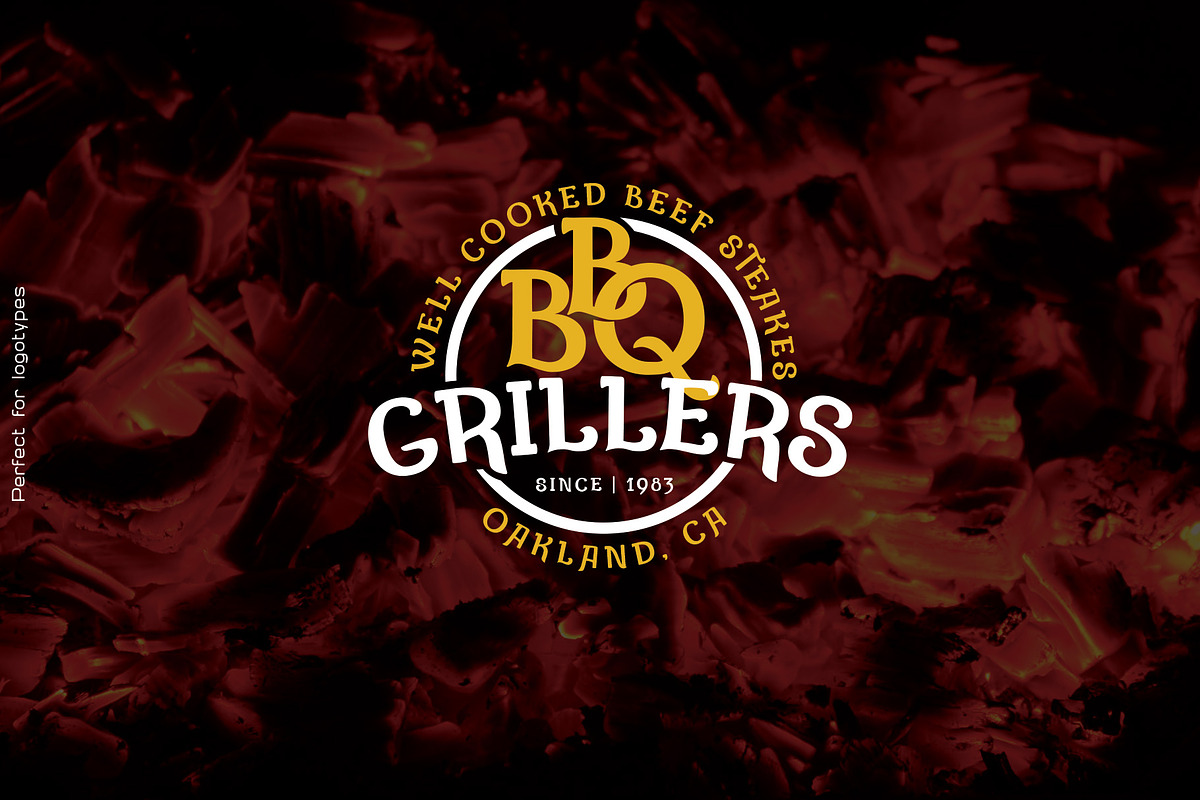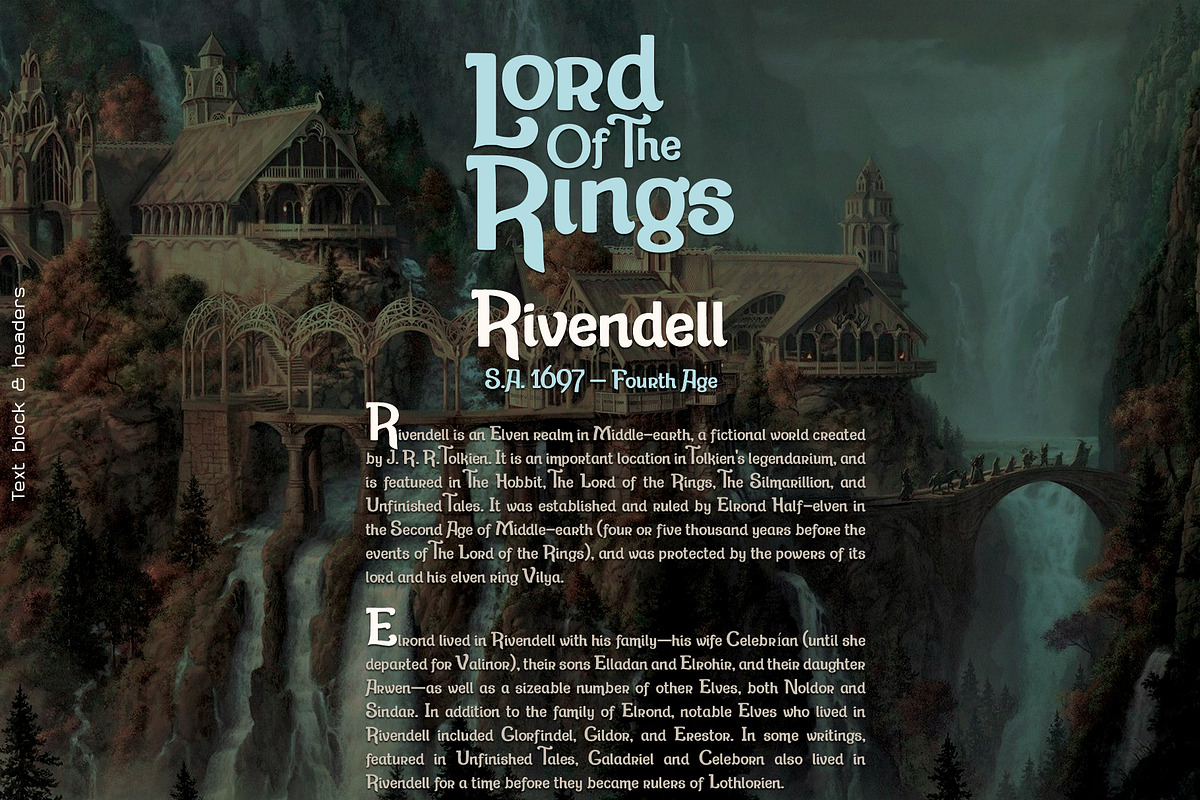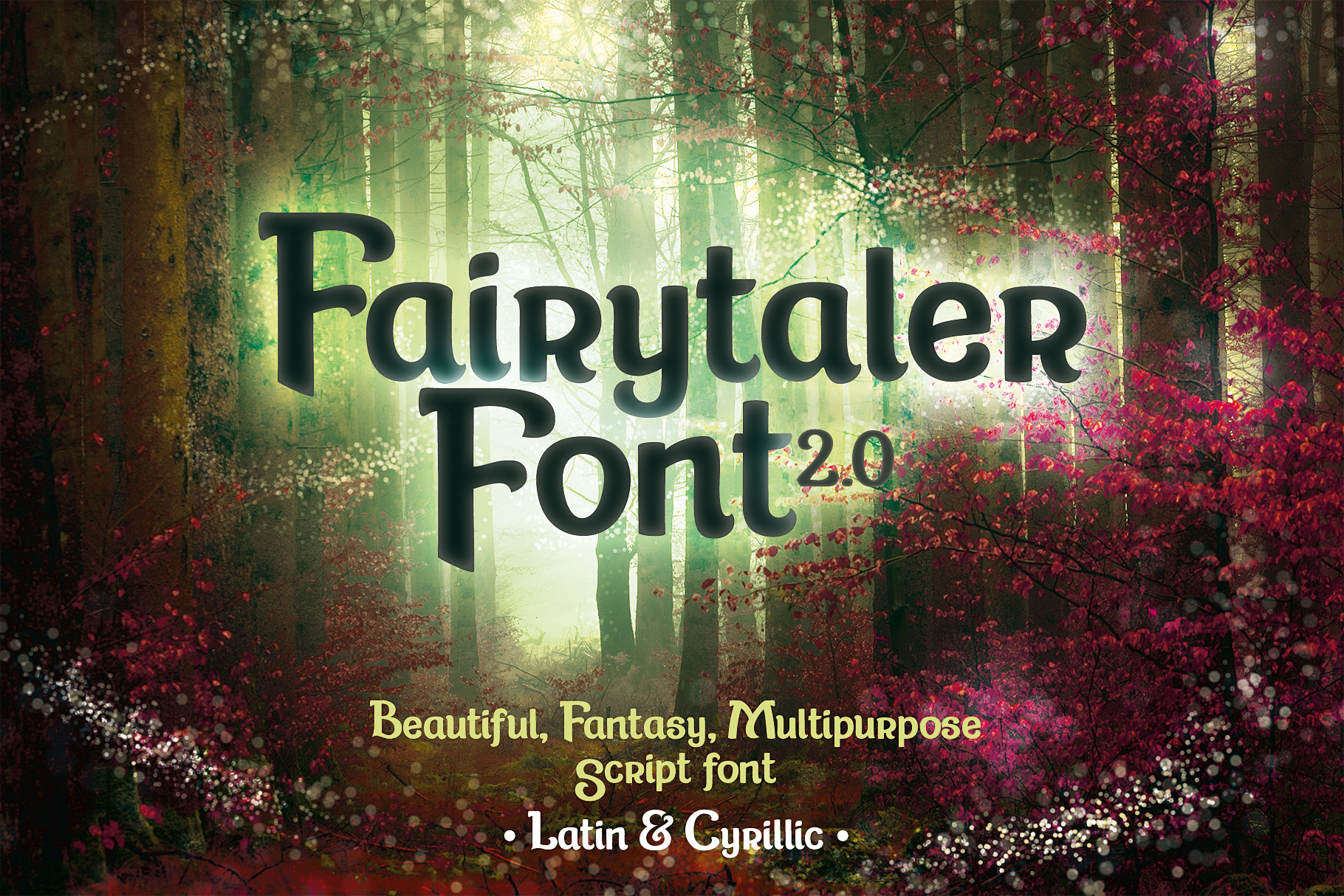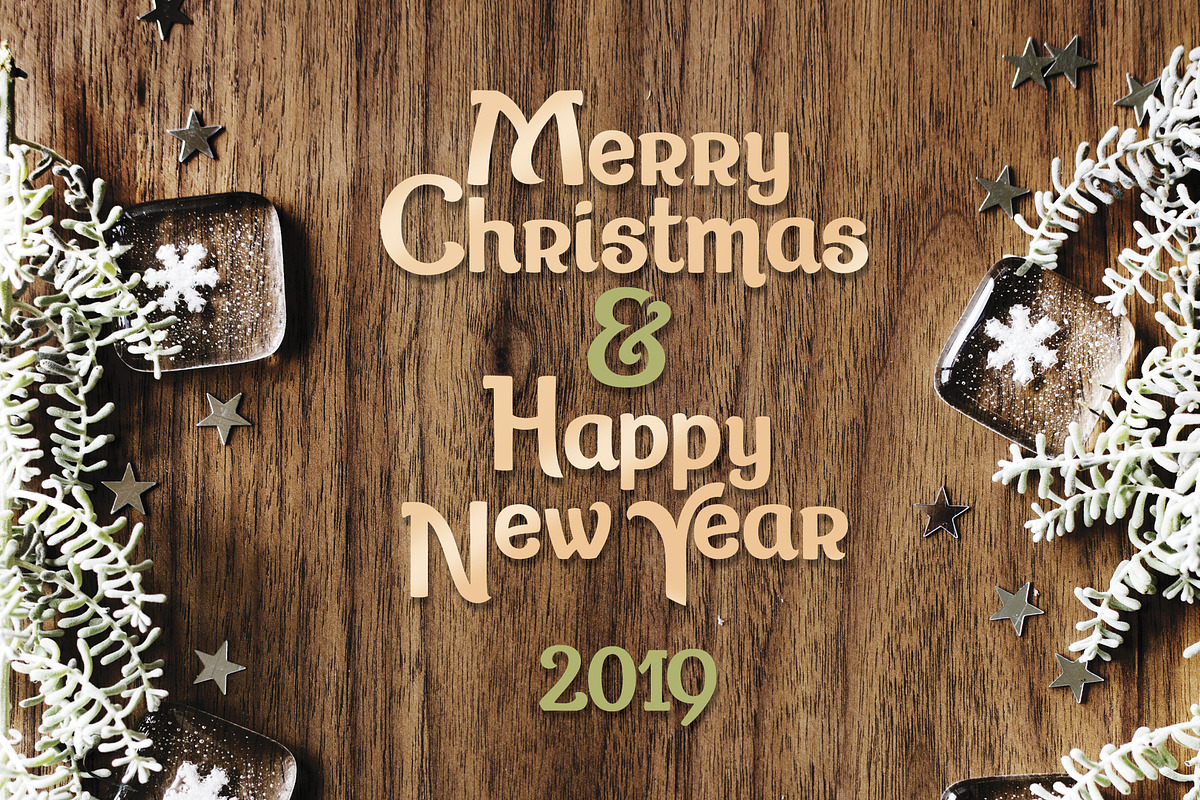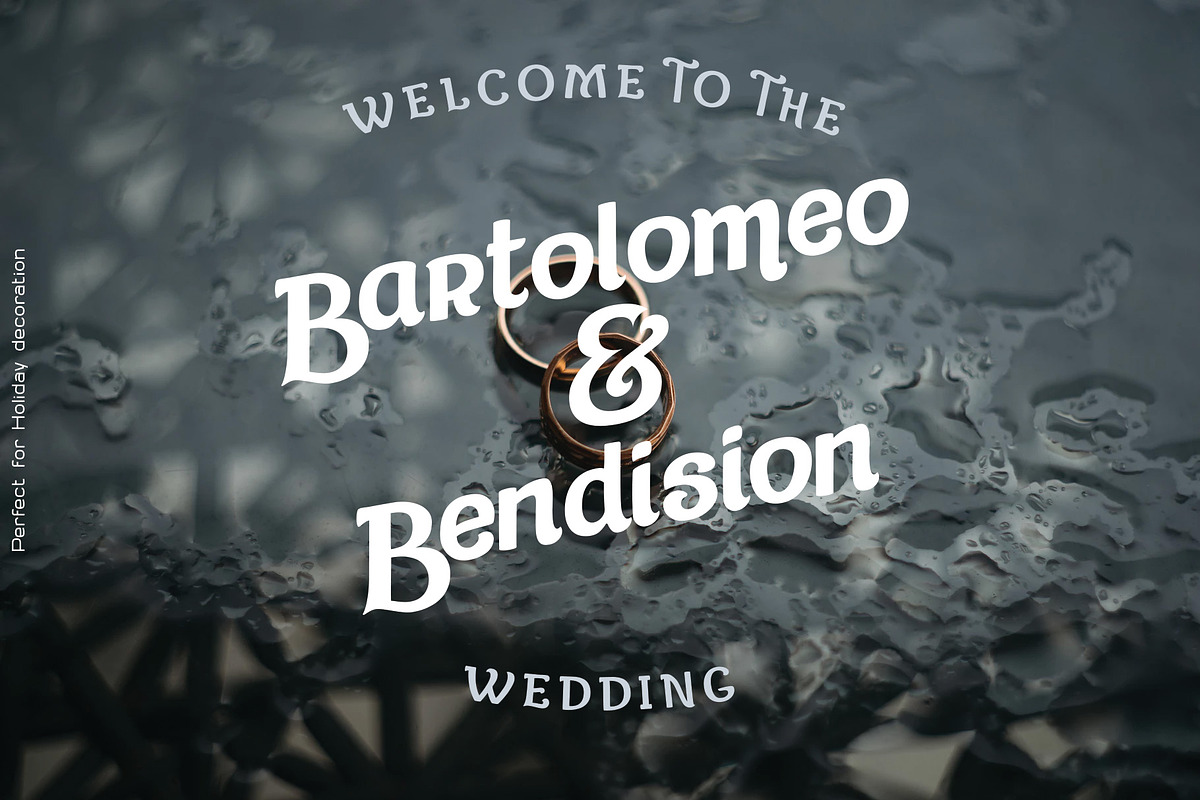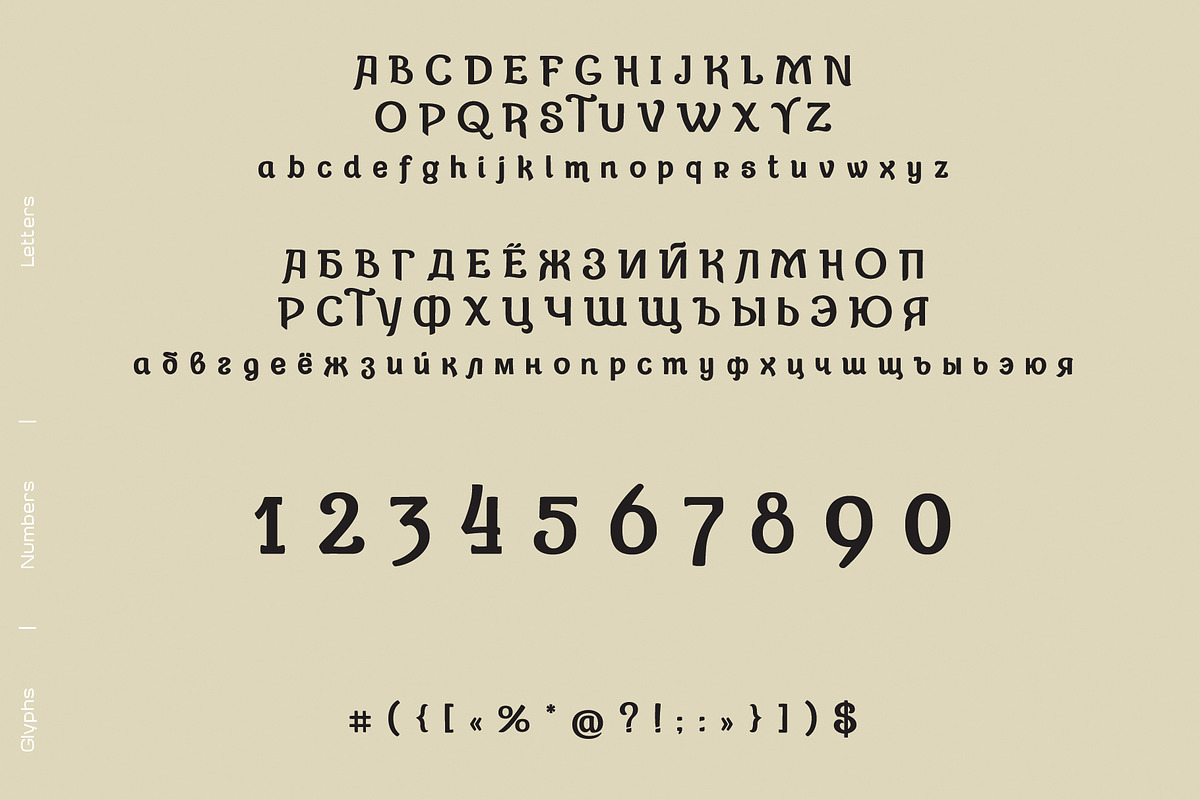
Fairytaler | Fantasy script font
Fantasy multipurpose script font that you can use in logo, poster, lable, packaging, event decoration, t-shirt and other designs. Also looks great in text blocks and headers. Thanks for your likes and downloads!